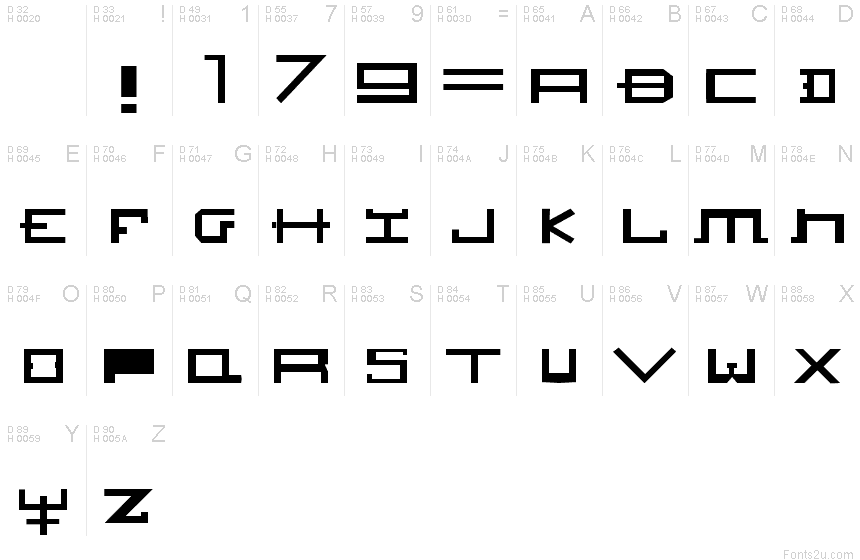
HOZENOZZLE
Hozenozzle, a striking display font designed by the innovative Goobleez Brothers, exudes a distinct techno-inspired essence. With its expanded character width and angular, geometric letterforms, this font radiates a bold, futuristic aesthetic. The sharp, angular edges and clean lines create a sense of precision and dynamism, making Hozenozzle an excellent choice for headlines, branding, and digital interfaces where a commanding, high-tech visual impact is desired.
Its versatility extends across a range of applications, from eye-catching poster designs to immersive motion graphics and cutting-edge user interfaces.
CREATED BY THE GOOBLEEZ BROTHERS, FIFI & DELILAH